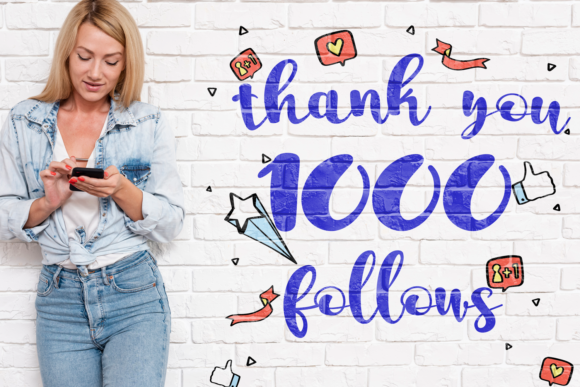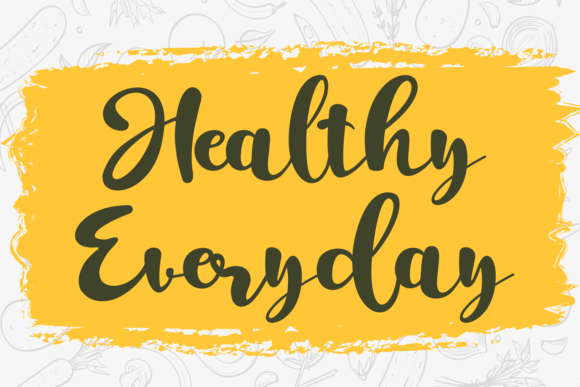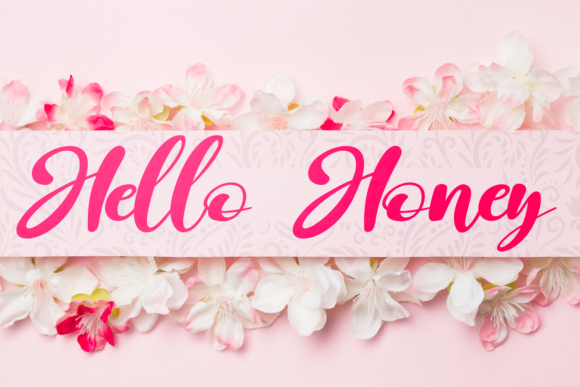
Get Ready to Fall in Love with the Creatine Youth Font
Have you ever stared at a blank canvas, feeling like the perfect design is just out of reach? The blank page stares back, taunting you with its emptiness. But then, like a ray of sunshine, you stumble upon the perfect font – and everything changes. For designers, this moment of epiphany is what makes all the hard work worth it.
Enter the Creatine Youth Font, a bold and cute script font that’s sure to steal your heart. Its unique, well-rounded letters make it a masterpiece that’s begging to be used in your next design project. Whether you’re creating a logo, a social media post, or a poster, this font is the perfect addition to take your design to the next level.
With its incredibly versatile style, the Creatine Youth Font is a valuable asset for any designer looking to add a touch of whimsy and personality to their work. So why settle for a generic font when you can have a font that truly stands out?
- Unique Characteristics: Includes hand-drawn illustrations and playful, modern design elements
Creatine Youth Font Review
I recently had the chance to work with the Creatine Youth Font, and I must say it was an interesting experience. Here are my thoughts.
- The font has a youthful and energetic vibe that’s perfect for brands targeting a younger audience.
- The rounded edges and friendly curves make it easy on the eyes and pleasant to read.
- The font is highly customizable, allowing you to adjust the weight, width, and other properties to suit your design needs.
- The font may not be the best choice for professional or corporate brands, as it’s a bit too playful and casual.
- The font lacks a clear hierarchy, which can make it difficult to create a clear visual structure in larger designs.
- The font’s bold and italic weights may not be as refined as some other fonts in the same category.
Overall, I think the Creatine Youth Font is a solid choice for designers looking to create a youthful and energetic brand identity. While it may have some limitations, it’s a fun and versatile font that can add a lot of character to your designs.
Here are some tips to get the most out of the Creatine Youth Font:
- Use it in combination with bold or italic text to add emphasis.
- Experiment with different font sizes to create visual interest.
- Pair it with other fonts to create a unique and stylish look.
The Creatine Youth Font is suitable for a variety of applications, including:
- Branding and logos.
- Use the font for the title of the poster, such as “CHAMPIONS” or “LEGENDS.”
- Combine the font with bold, cursive script fonts for team names or player names.
- Distressed textures can add a worn, vintage feel to the poster.
- Use bold colors like red, blue, and yellow to evoke a sense of energy and excitement.
- Combine the font with classic sports imagery, such as vintage photographs or illustrations of sports equipment.
- Use the font for the title of the festival, such as “SUMMER JAM” or “FESTIVAL FEVER.”
- Combine the font with sans-serif fonts for the list of performers or festival details.
- Use bright colors like pink, green, and blue to evoke a sense of energy and excitement.
- Combine the font with bold graphics, such as geometric shapes or abstract patterns
3 Creative Project Ideas Using Creatine Youth Font
Project 1: Vintage Sports Poster
Create a retro sports poster using the Creatine Youth Font to give it a nostalgic feel. Combine it with distressed textures, bold colors, and classic sports imagery.
Project 2: Music Festival Flyer
Create a music festival flyer using the Creatine Youth Font to give it a fun, youthful vibe. Combine it with bright colors, bold graphics, and festival-themed imagery.